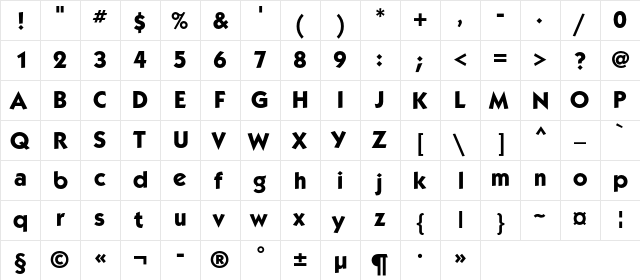
Kabel MediumC Bold
Design Context for Kabel MediumC Typeface
Kabel MediumC offers clean, dependable letterforms without strong stylistic allegiance, making it a practical choice for designers who need flexibility. Its bold stroke weight gives it real presence on the page.
Pro Tip: Pair Kabel MediumC with a font of contrasting weight or personality to build a more expressive typographic hierarchy.